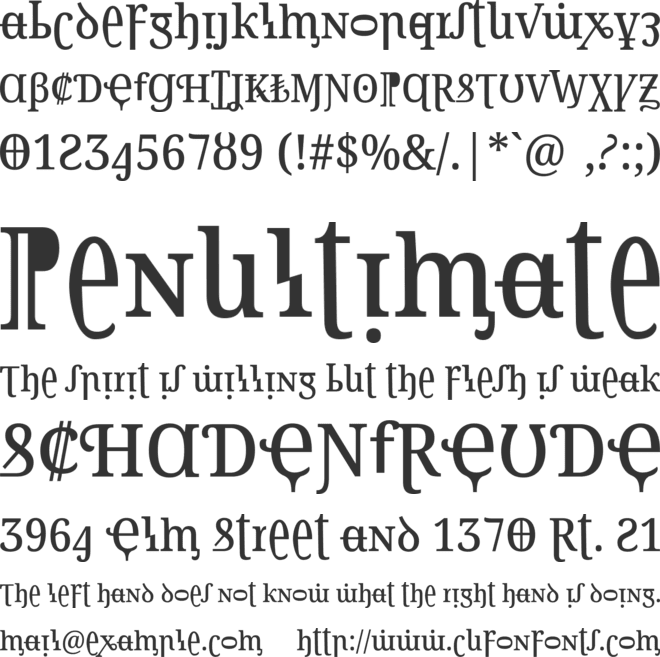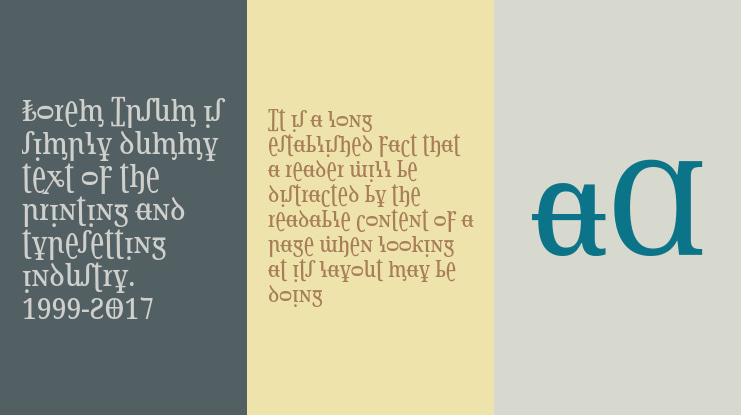
Strangest Showman Font
Strangest Showman is the newest free serif hacker font based on Noto Serif Semi-Condensed Medium. The font name is a wordplay of the 2017 live action musical movie The Greatest Showman. To learn more about the movie and the font's license, please see the provided readme file.